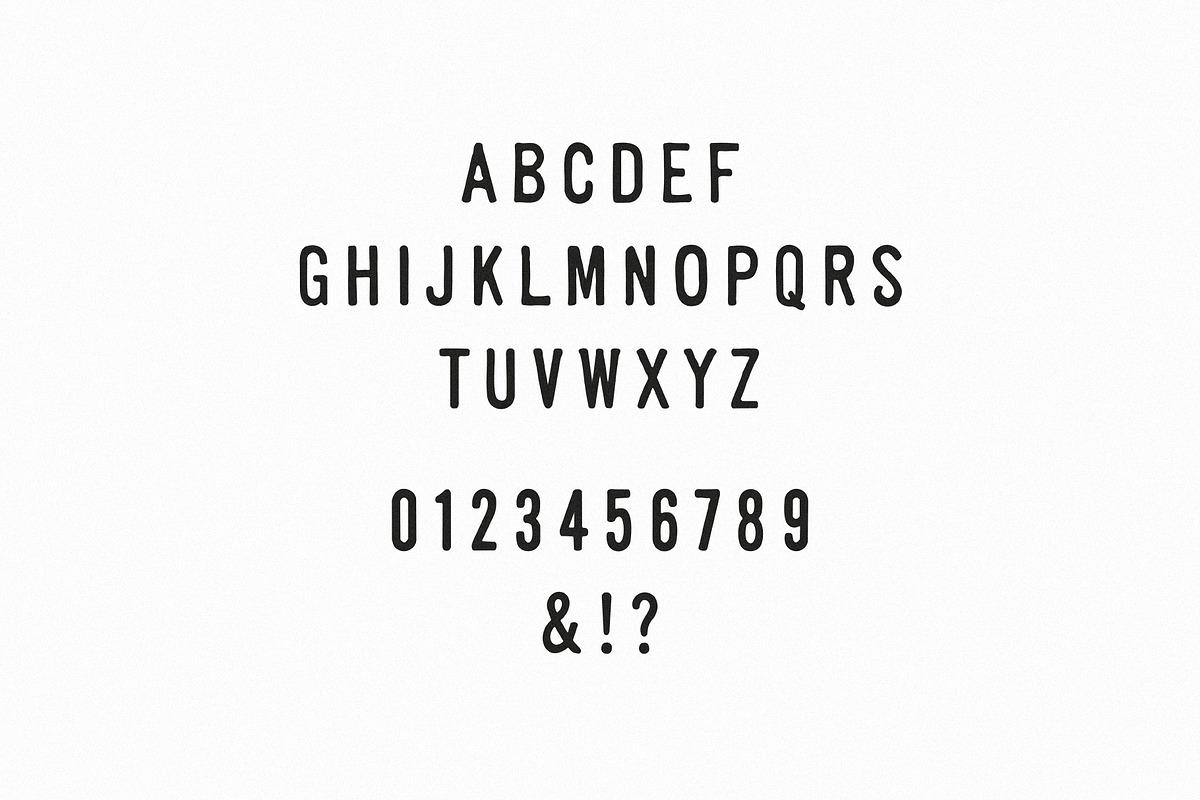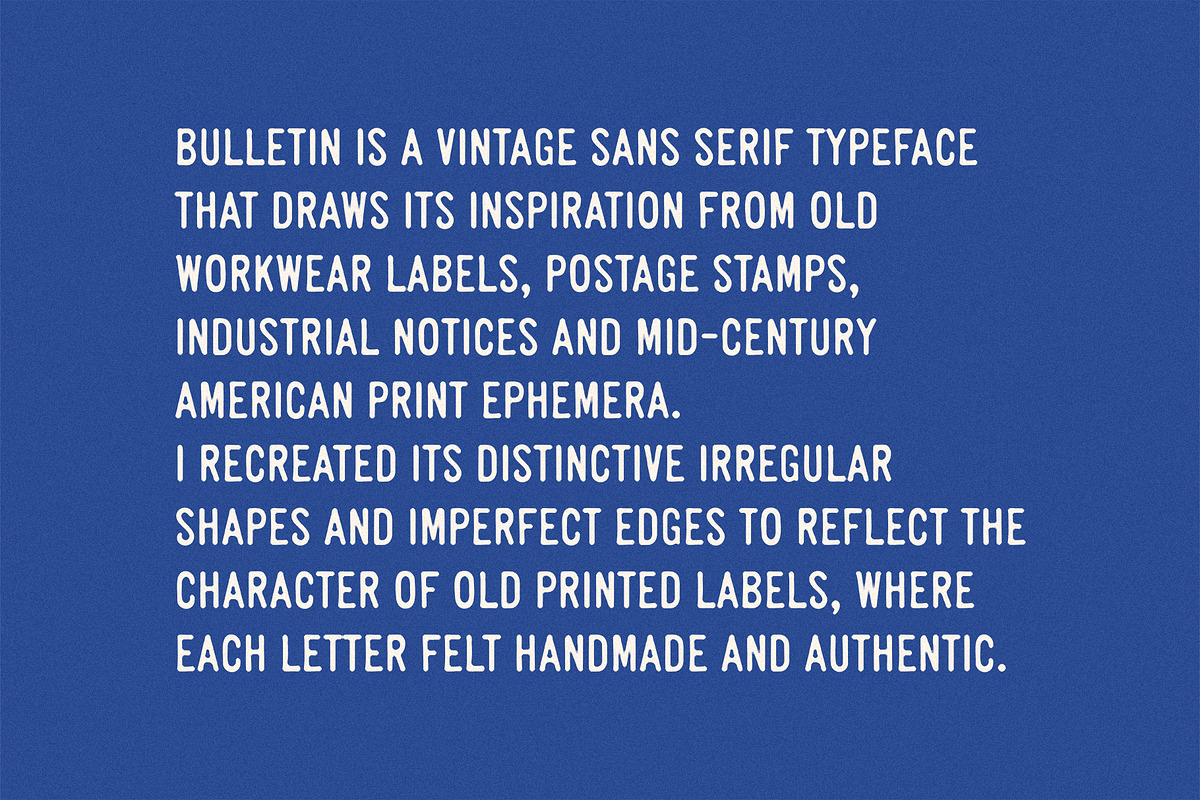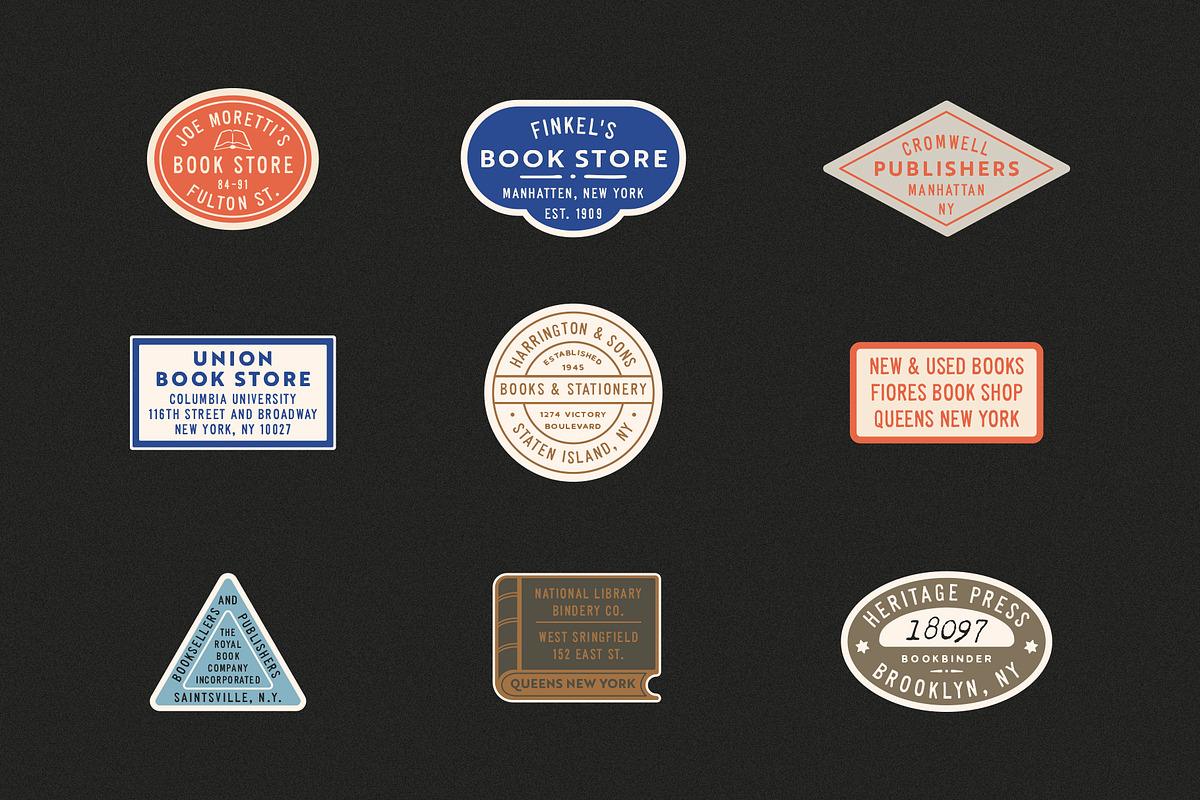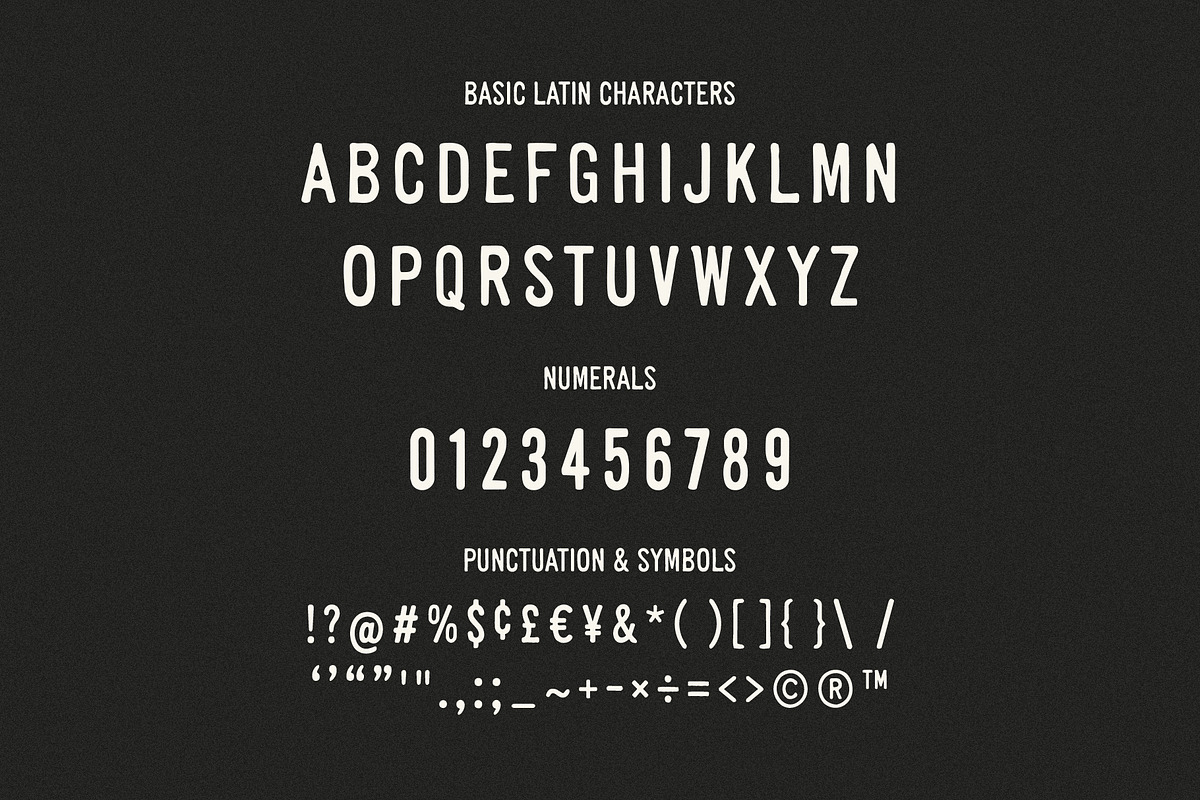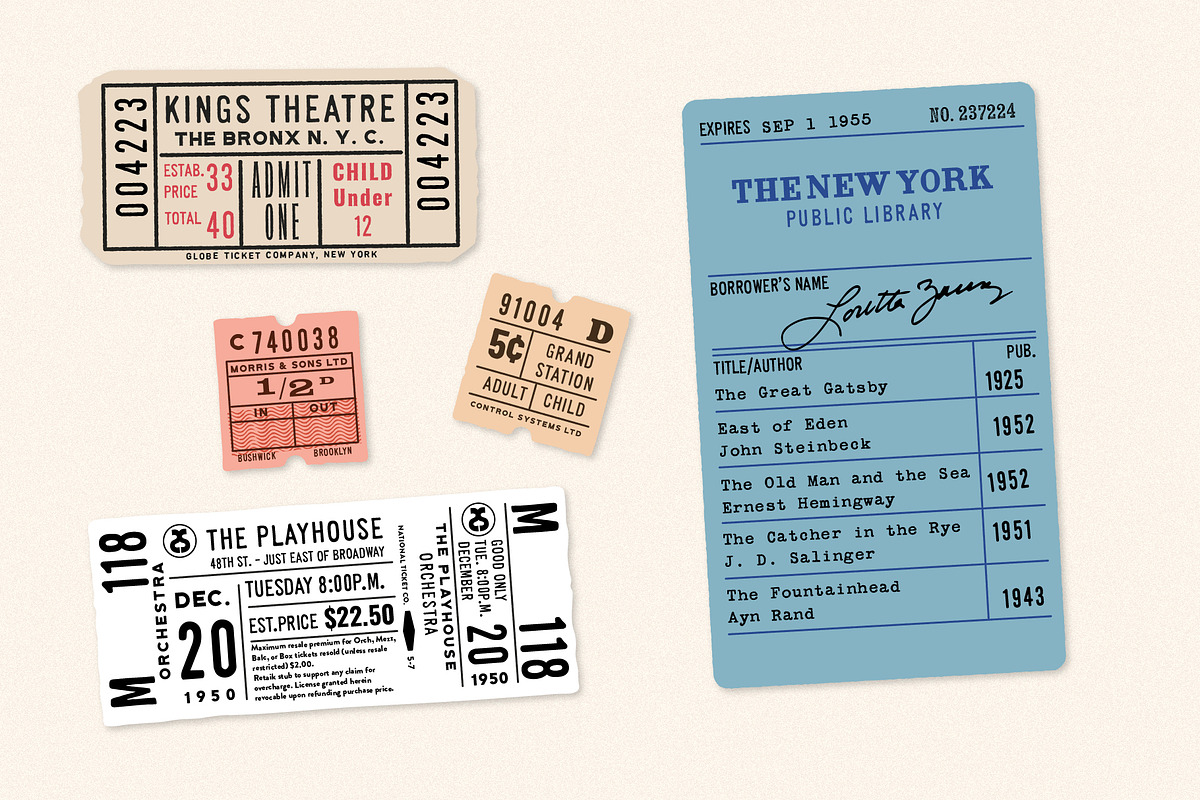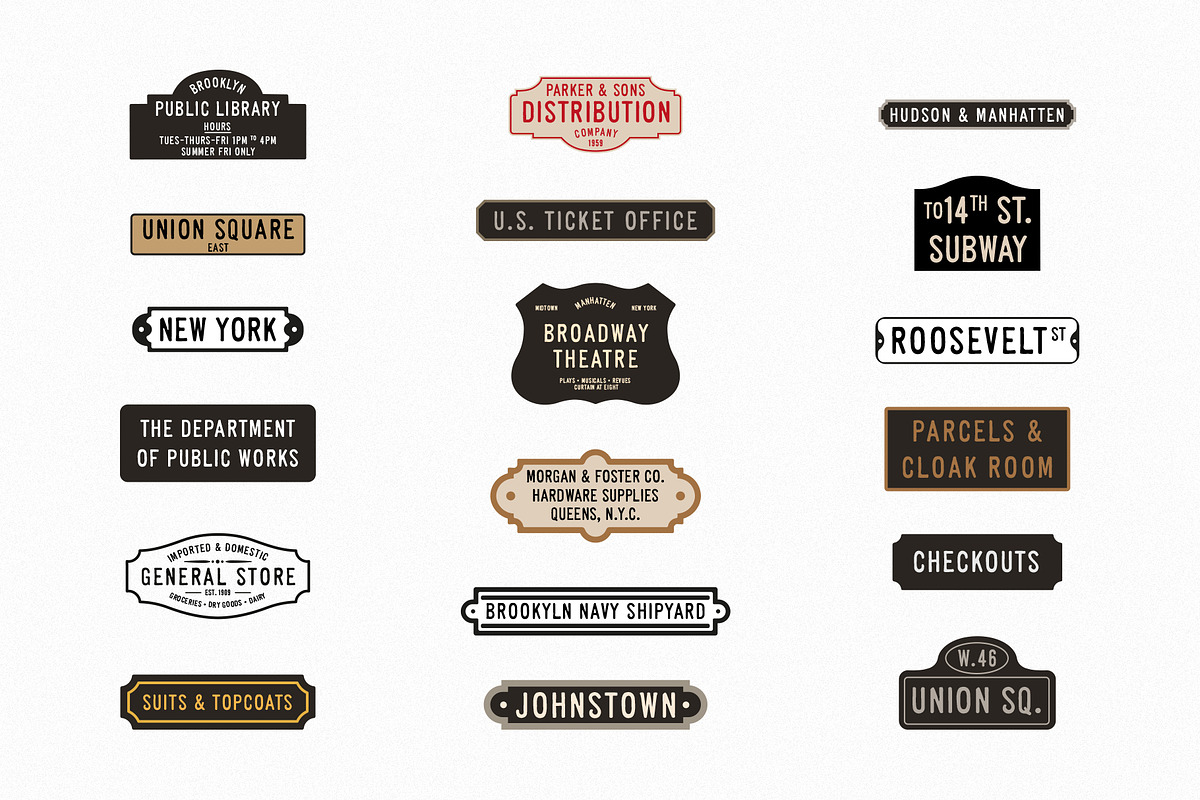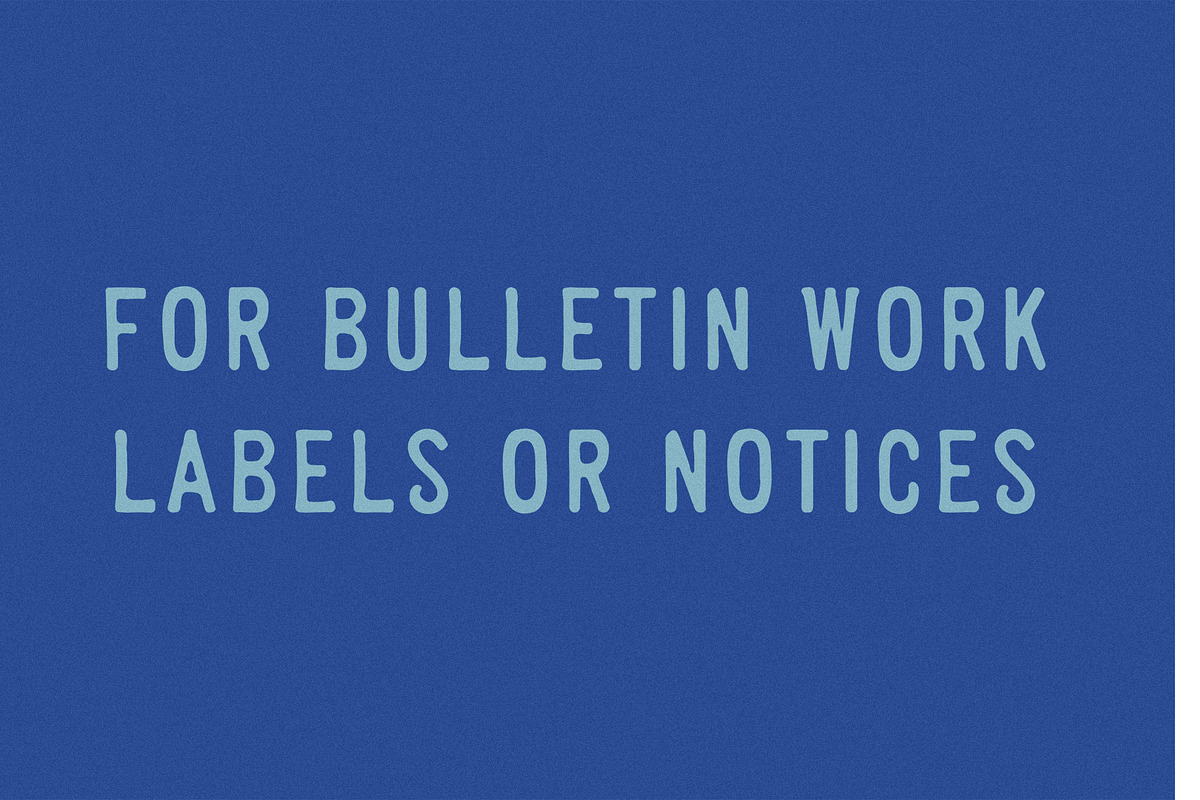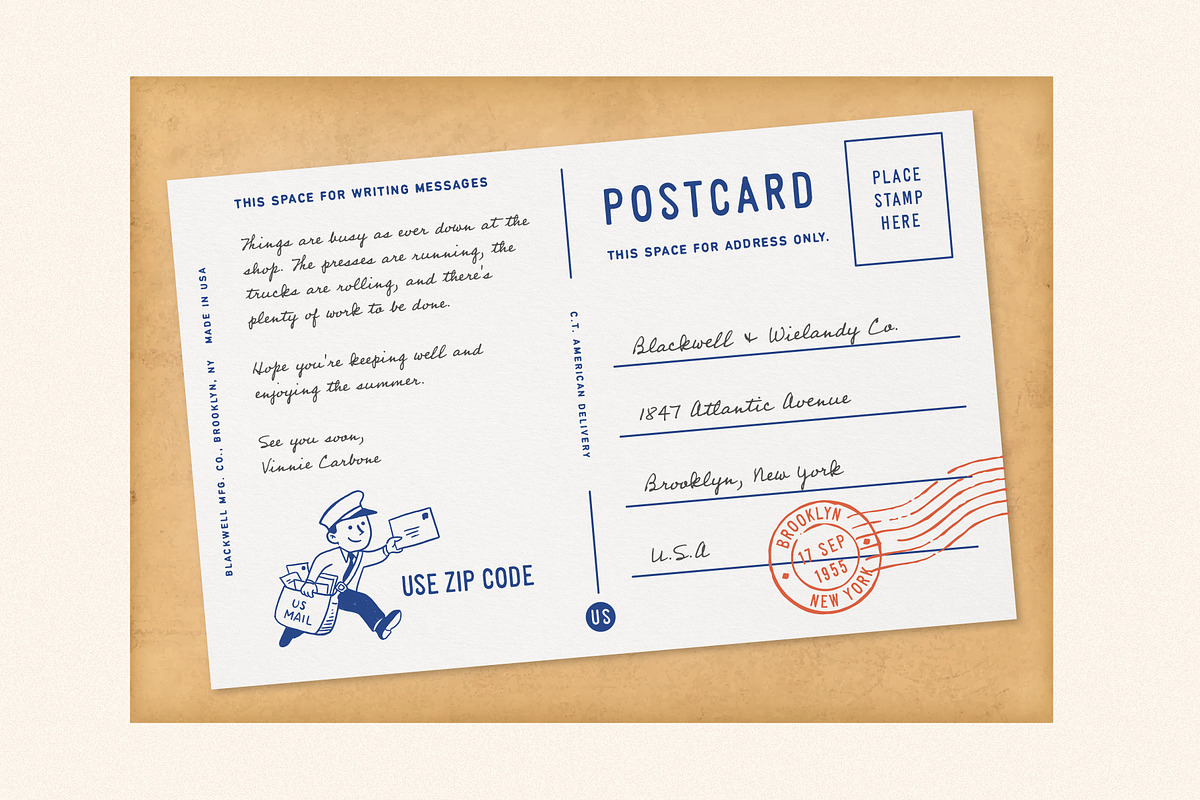
Bulletin | Vintage Sans Serif Font
Introducing Bulletin – a condensed vintage sans serif inspired by mid-century American industrial lettering, old workwear labels, postage stamps, and print ephemera. It brings a real industrial feel to modern design without sacrificing its clean, highly readable structure.
Bulletin is for designers who want to bring a touch of vintage character, utilitarian charm and vintage Americana to their work. Its tight proportions make it especially useful for headlines, logos, labels, packaging, posters, apparel, signage, badges and display typography.
Whether you're creating a heritage-inspired brand, a vintage product label, a 1950s-inspired poster, or simply want typography with a little more character, Bulletin brings the feel of old printed lettering into a modern font.
Condensed vintage sans serif display font
Inspired by 1940s–50s American industrial lettering
Distinctive handmade character with irregular forms and imperfections
Slightly rounded edges inspired by vintage printing and ink bleed
Designed around the practical lettering of labels, notices, signs, and packaging
Strong fit for vintage, retro, industrial, Americana, workwear, and heritage designs
Excellent for headlines, logos, branding, posters, packaging, apparel, signage, labels, badges, and editorial design
Includes uppercase letters, numbers, punctuation, symbols, currency and mathematical characters
Carefully recreated character set with individual quirks and subtle variations